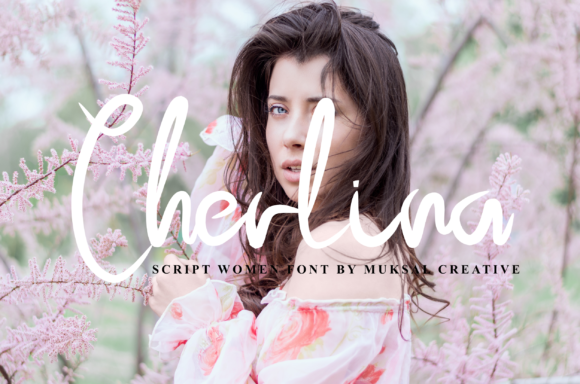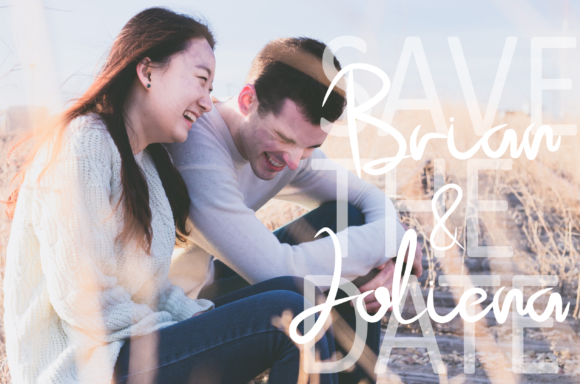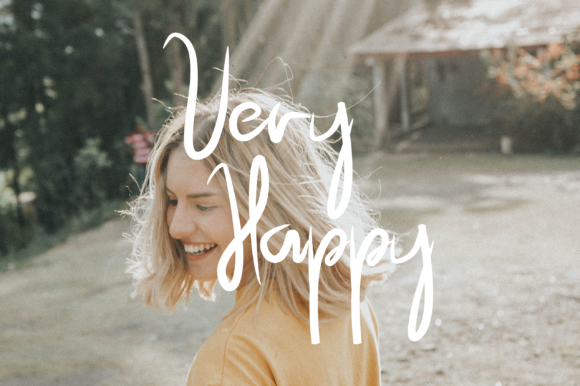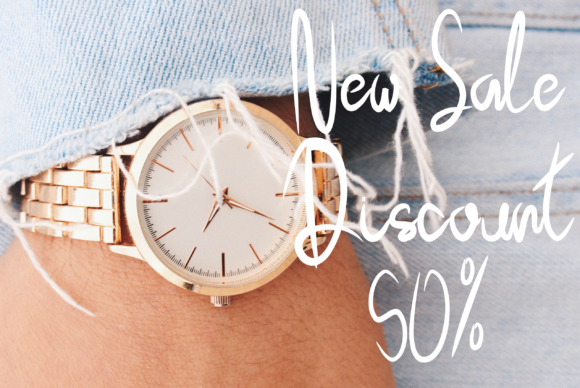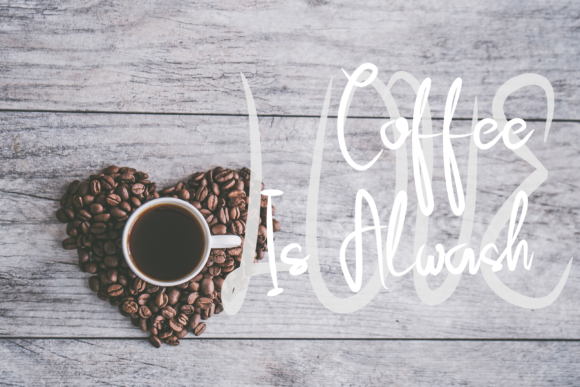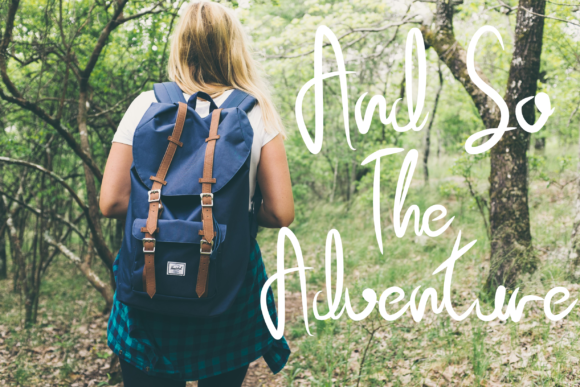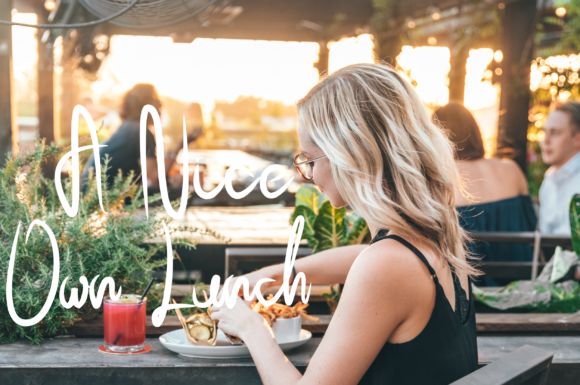
The Perfect Script: Unlocking the Magic of Cherlina Font
Have you ever been working on a crafting project, surrounded by colorful papers, glue, and scissors, and suddenly you need the perfect font to give it that extra special touch? That’s exactly what happened to me the last time I was planning a birthday party for my little niece. I was determined to create a custom invitation that would make her feel like a princess, and I knew just the thing – a beautiful, modern script font that would add a playful and whimsical touch to the design.
Enter Cherlina Font, a charming and modern script font that is perfect for adding a personal touch to any crafting project. Whether you’re a seasoned crafter or a DIY enthusiast, this font is sure to become a staple in your design arsenal. Its unique style and versatility make it an invaluable tool for designers looking to add a little extra flair to their projects.
Cherlina Font Key Features
- Unique Characteristics: Cherlina Font features a unique, hand-drawn design with a mix of modern and vintage elements, giving it a distinctive and eye-catching look.
Cherlina Font Review
I’ve had the chance to work with Cherlina Font, and I must say it’s an interesting choice. Let’s break it down.
- Unique aesthetic: Cherlina Font has a distinct, playful feel that can add a touch of whimsy to your designs.
- Good for titles and headings: The font’s bold, energetic personality makes it well-suited for titles, headings, and other prominent text.
- Available in various weights: Cherlina Font comes in multiple weights, which can be helpful for creating visual hierarchies in your designs.
- Limited readability: While Cherlina Font looks great at larger sizes, its readability suffers at smaller sizes, which can make it difficult to use for body text.
- May not be suitable for formal designs: The font’s playful, energetic feel may not be the best fit for formal or professional designs.
- Not suitable for long blocks of text: Cherlina Font is best used in moderation, as it can be overwhelming when used extensively in a design.
Overall, Cherlina Font is a fun, attention-grabbing choice that can add a lot of personality to your designs. However, it’s not without its limitations, and you’ll want to use it thoughtfully to get the best results.
Tips: Use the Cherlina Font for titles and headings to add a touch of elegance to your designs. Experiment with different font sizes and colors to create a cohesive look.
Tips: Use the Cherlina Font for custom logos, invitations, and other creative projects. Take advantage of the font’s versatility by experimenting with different font combinations and styles.
Tips: Use the Cherlina Font for presentations, reports, and other business documents. Use the font to add a touch of sophistication and professionalism to your work.
The Cherlina Font is suitable for a wide range of applications, including:
- Business presentations and reports
- Custom logos and branding
- Photography and design projects
Alternatives to Cherlina Font
Playfair Display is a luxurious, high-end font that is ideal for use in titles, headings, and other text where a touch of elegance is required. It has a similar vintage feel to Cherlina Font but is more ornate and refined.
Comparison: While Cherlina Font has a more subtle, distressed look, Playfair Display is bolder and more dramatic, making it a better choice for creating a sense of grandeur.